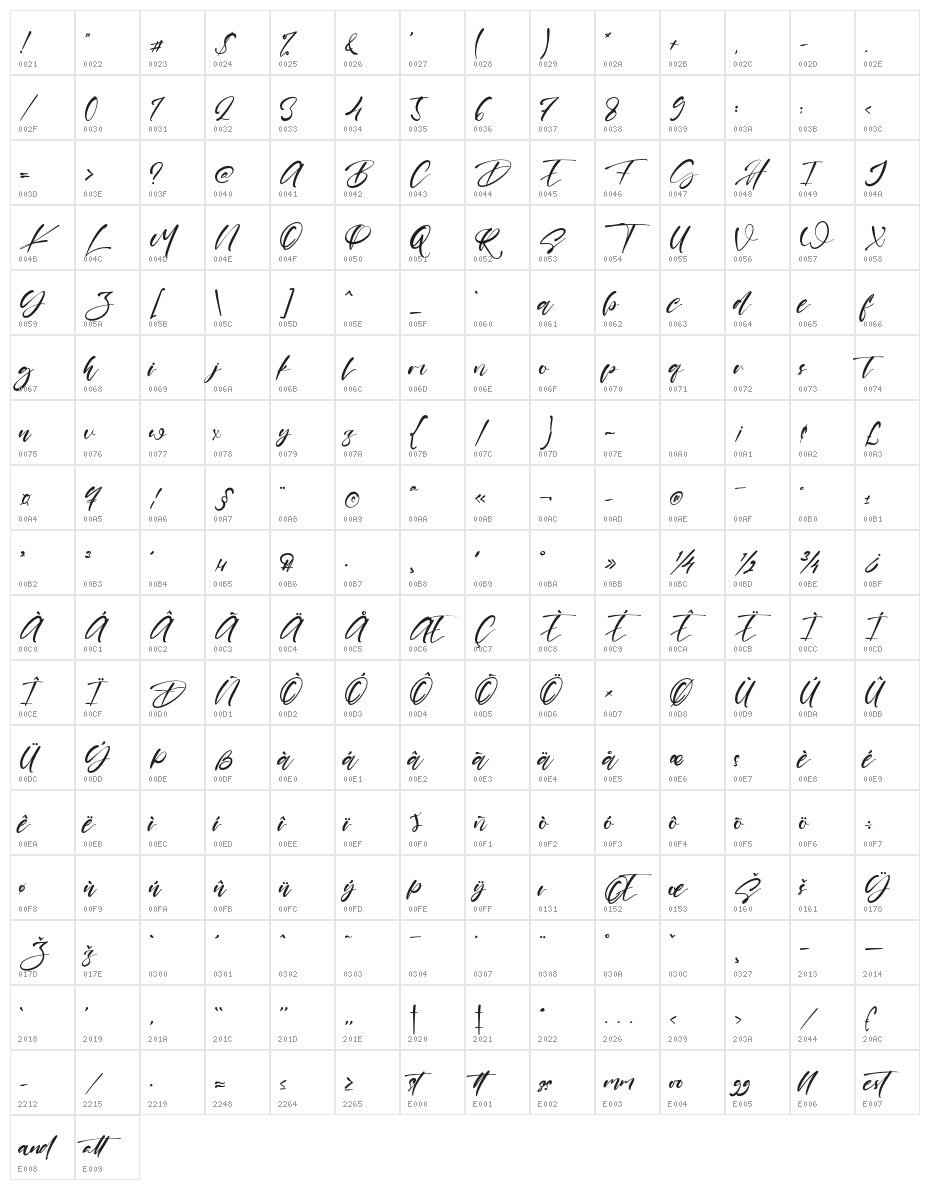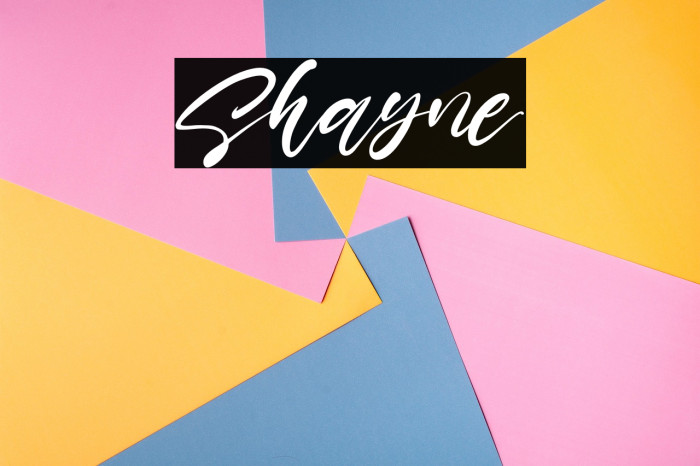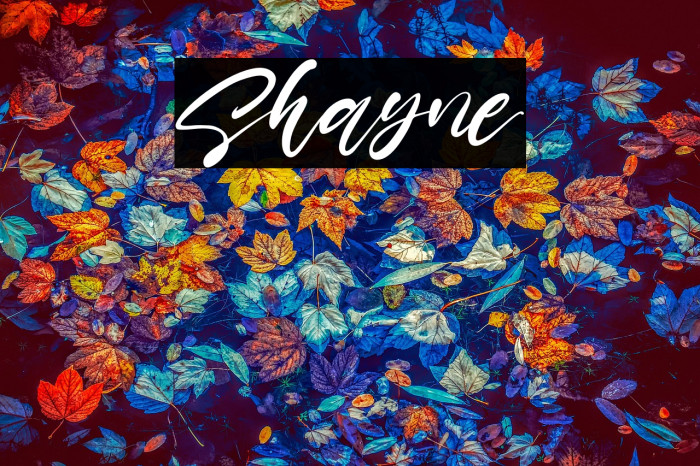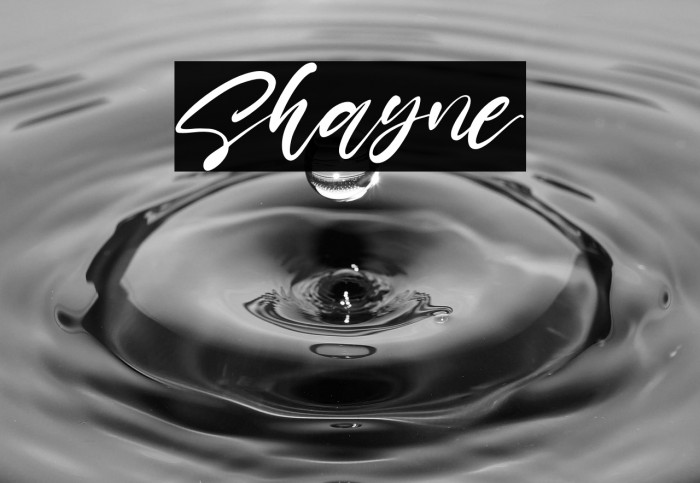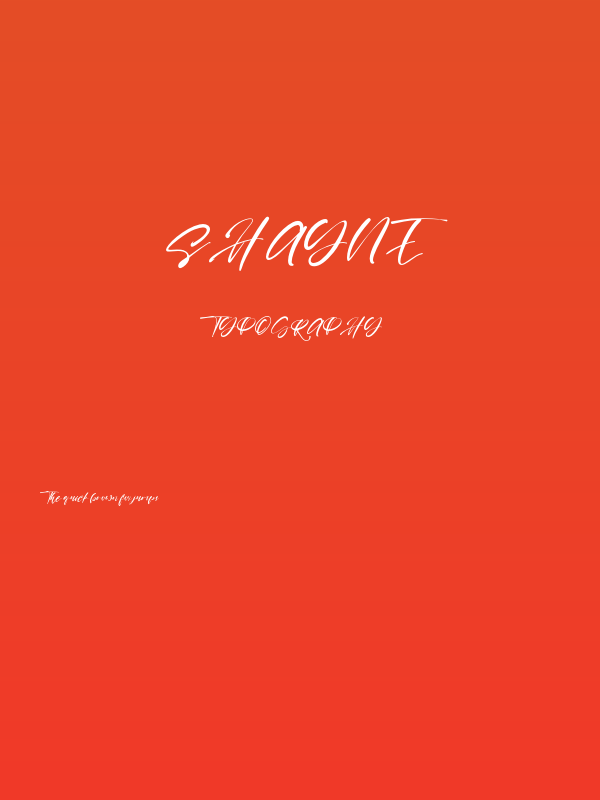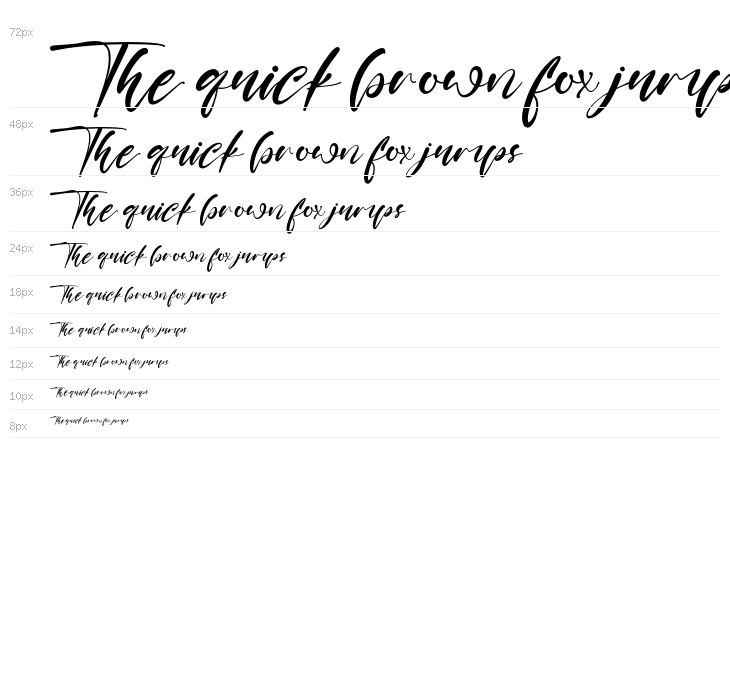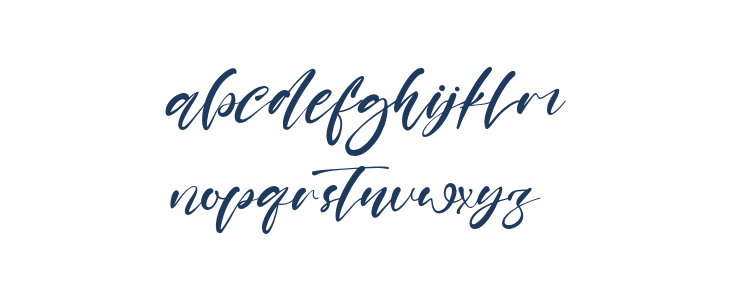
Shayne Font
Shayne Description
This font exudes a dynamic and expressive style, characterized by its fluid, cursive script. The letters are elegantly connected, with a natural flow that mimics the strokes of a calligrapher's pen. The uppercase letters are bold and sweeping, while the lowercase letters maintain a consistent rhythm and grace. The numerals and special characters are crafted with the same attention to detail, ensuring a cohesive look across all elements. The overall design is both artistic and legible, making it suitable for a variety of creative applications.
| Use Case | Logos, Headlines, Artistic projects |
| Proposed Projects | Ideal for wedding invitations, greeting cards, branding, and artistic projects. |